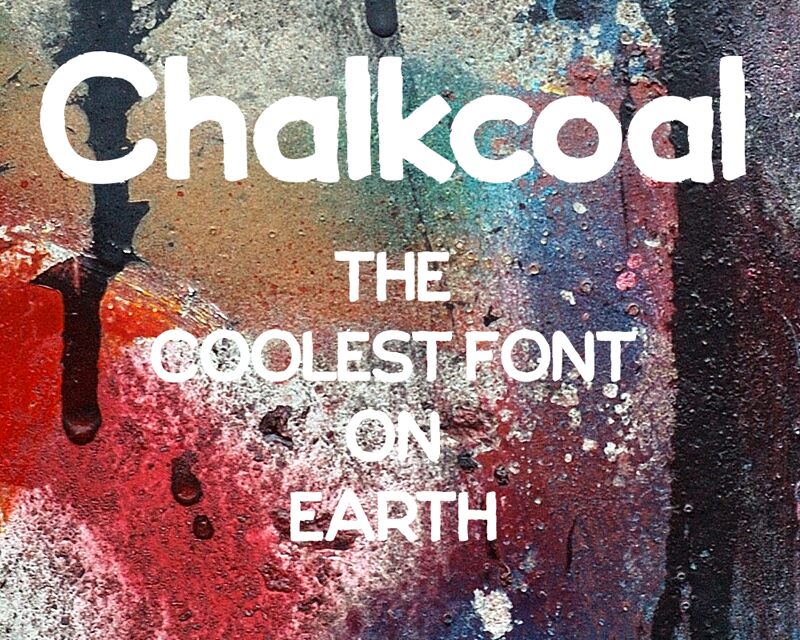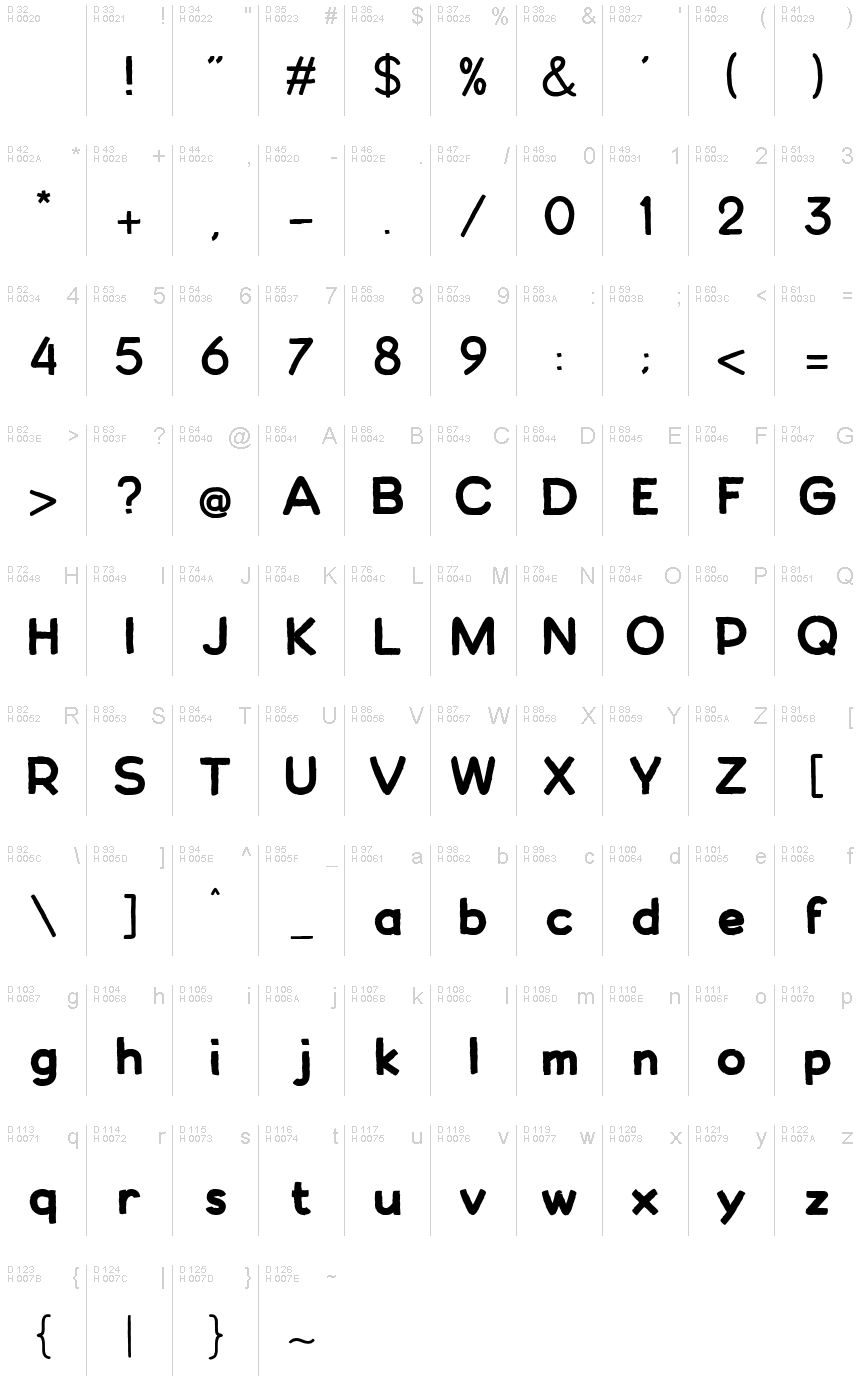
Chalkcoal
Chalkcoal is a bold and distinctive font that immediately commands attention. Its eroded, weathered appearance evokes the raw, textural quality of natural charcoal, lending a sense of rugged authenticity to any design.
The thick, uneven strokes and irregular edges give the font a rustic, handcrafted feel, evoking a sense of imperfection that adds character and depth. This font would be particularly well-suited for headlines, titles, and display elements where a strong, attention-grabbing presence is desired, such as in editorial layouts, branding, or certain types of packaging.
Its unique aesthetic lends itself to applications that seek to convey a sense of raw, industrial or artisanal sensibility, making it a versatile choice for a wide range of design projects.